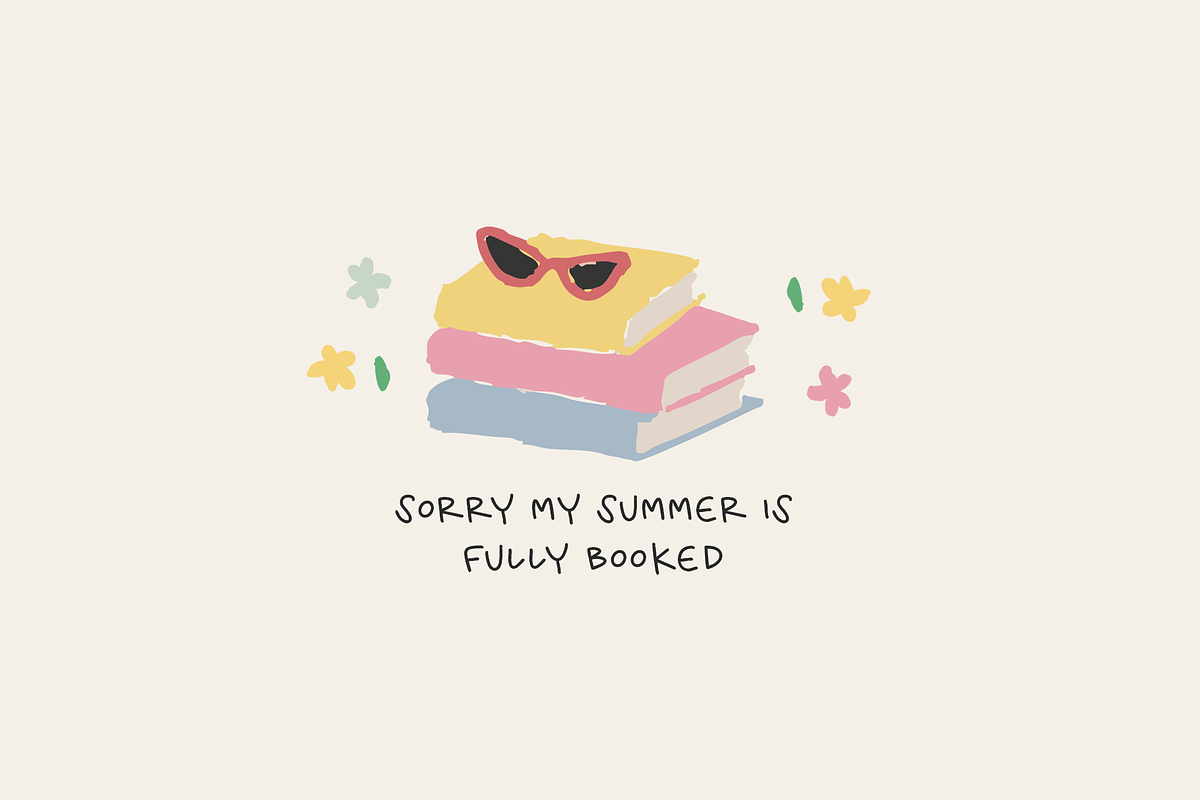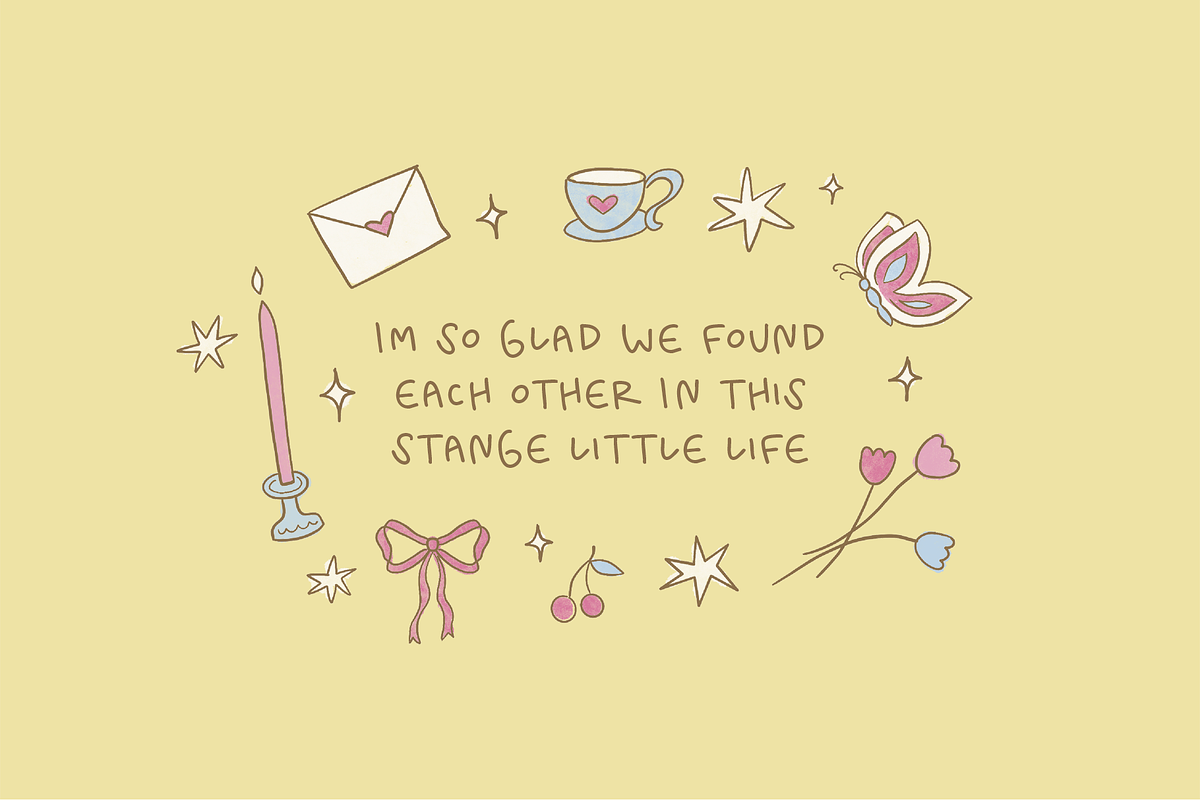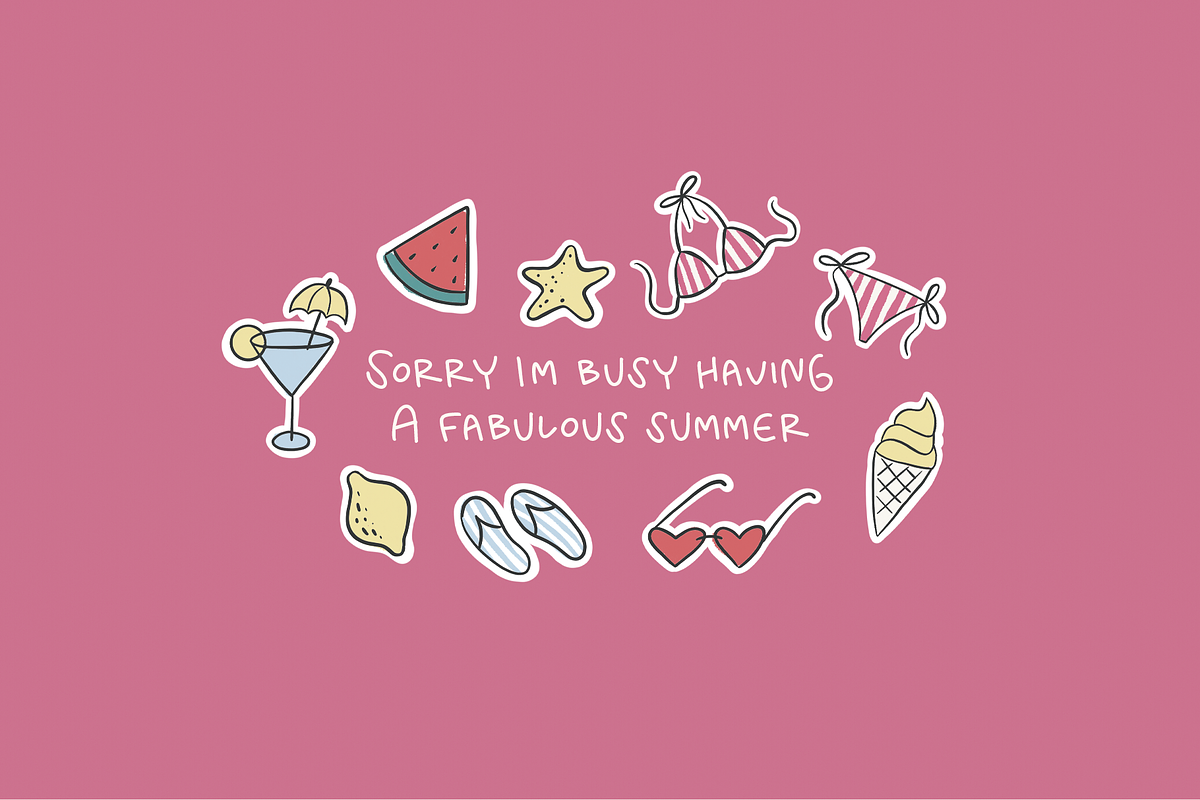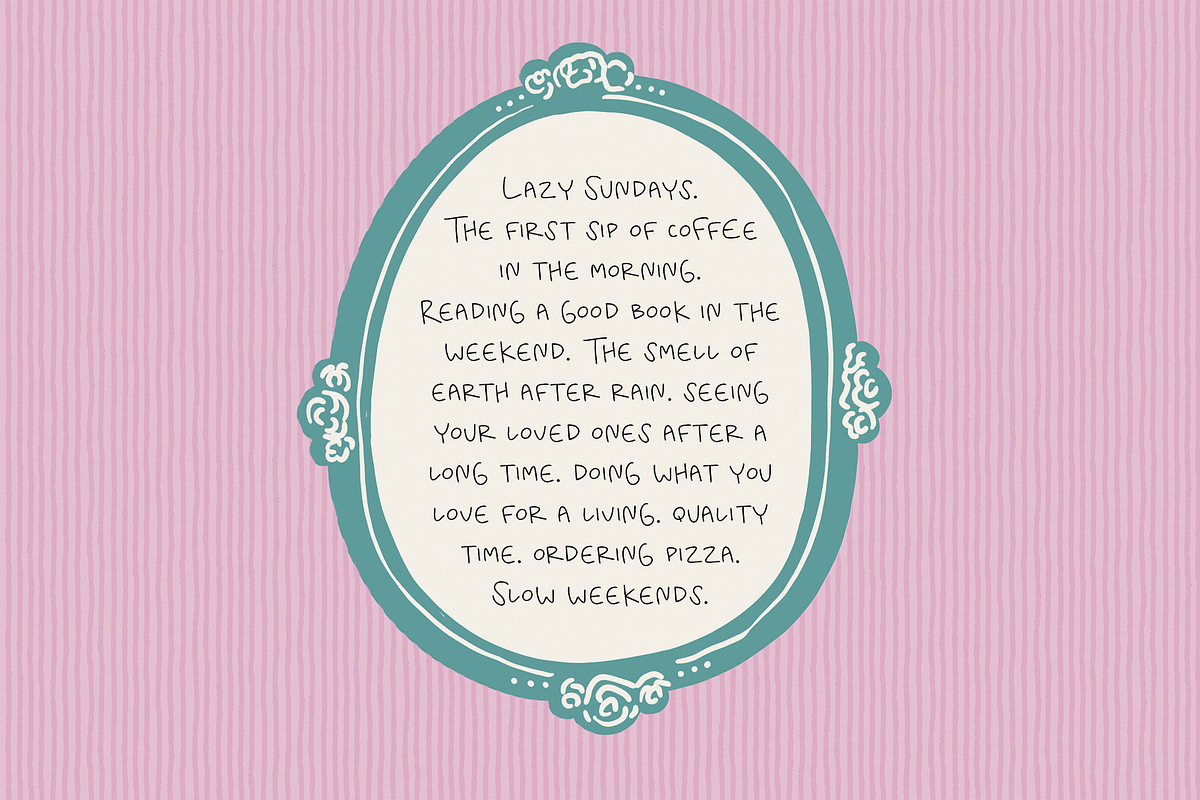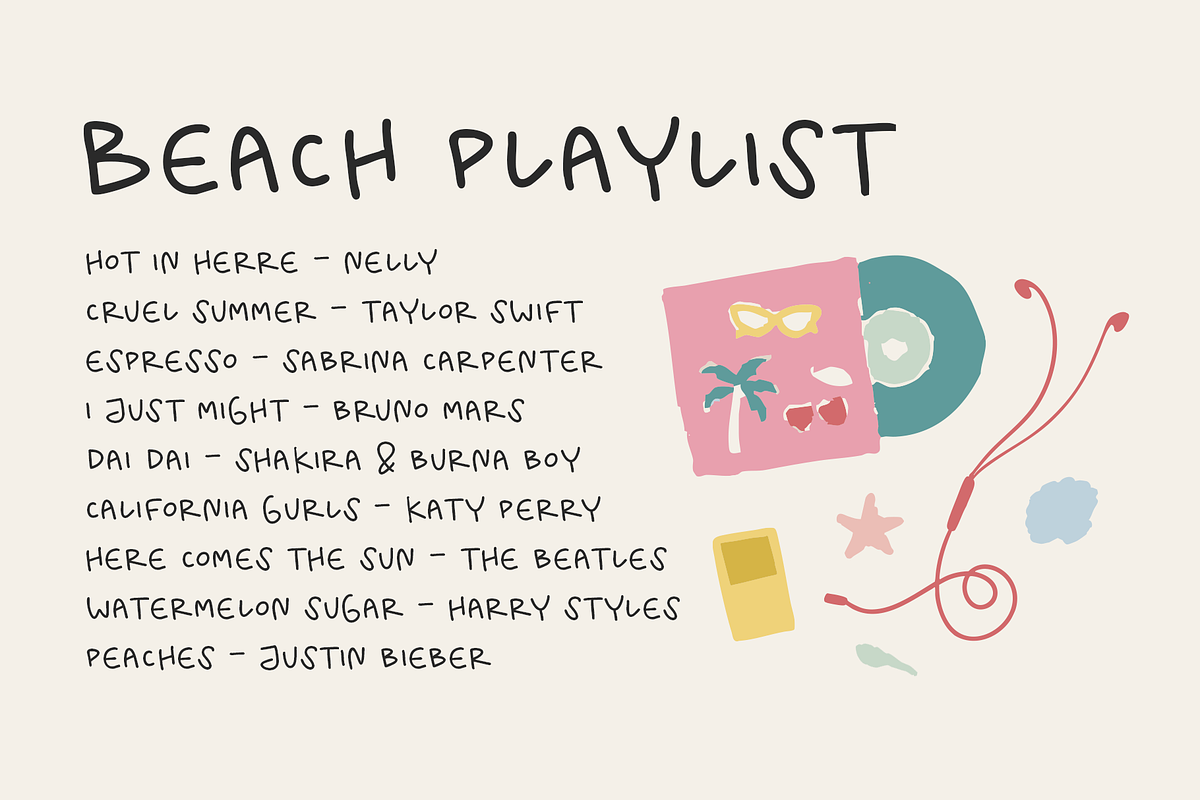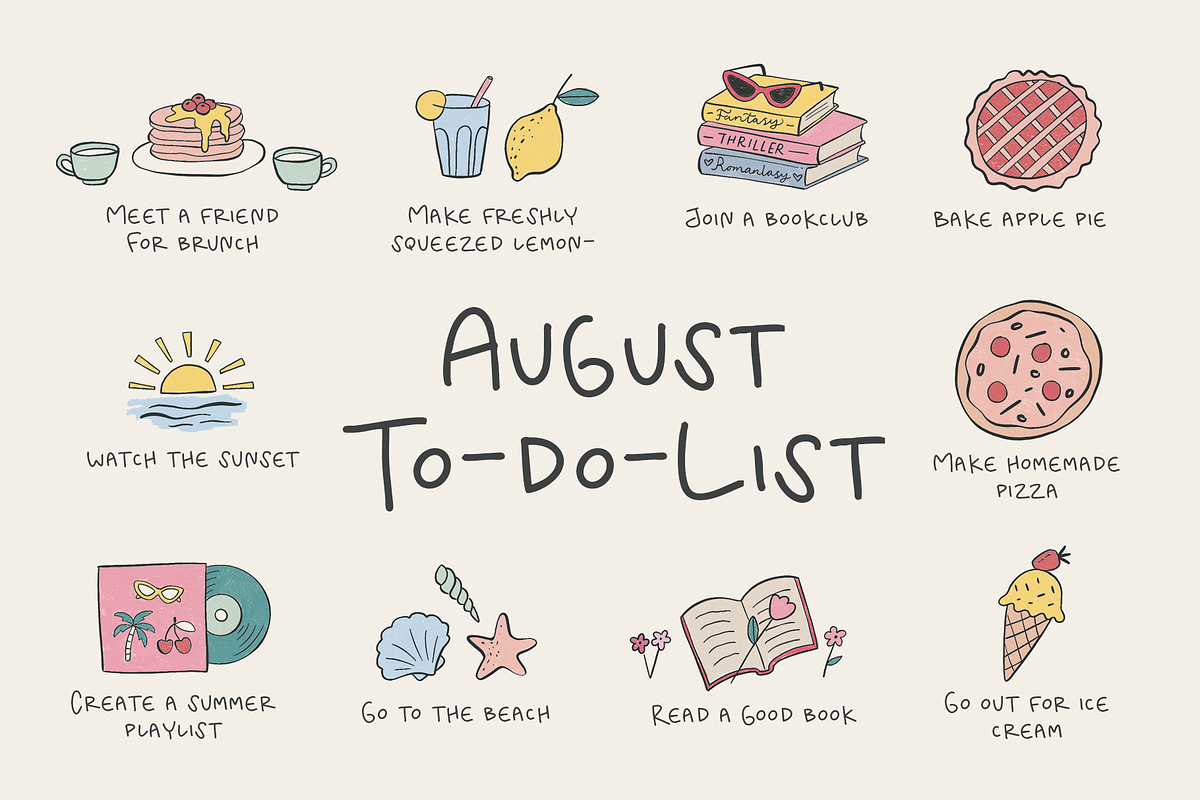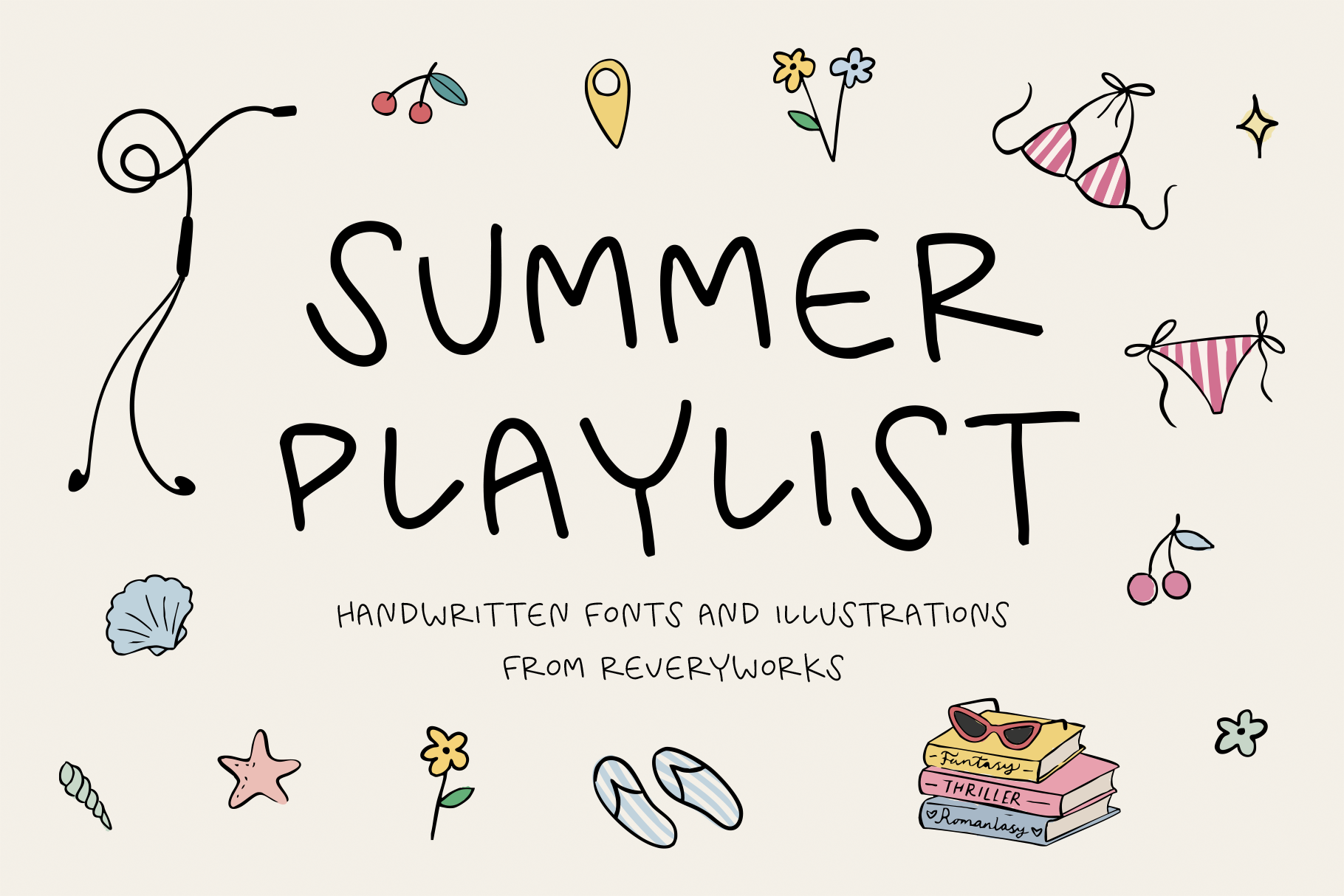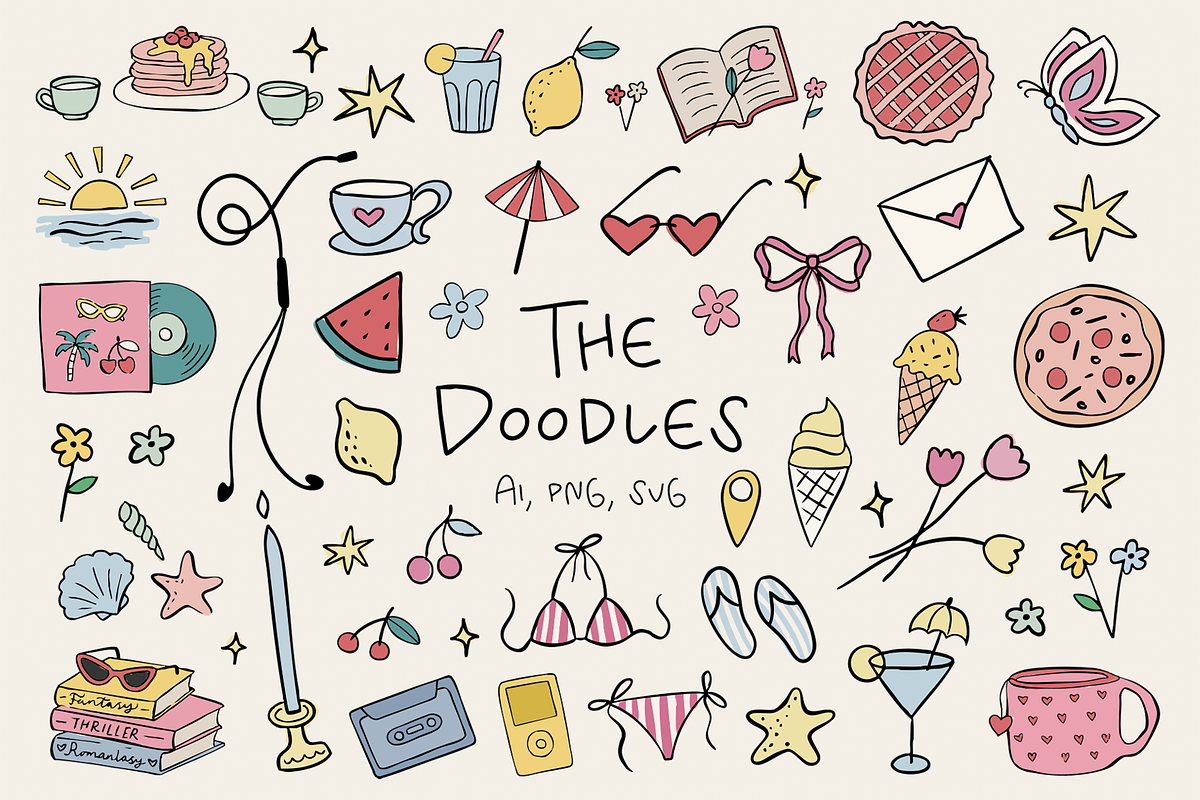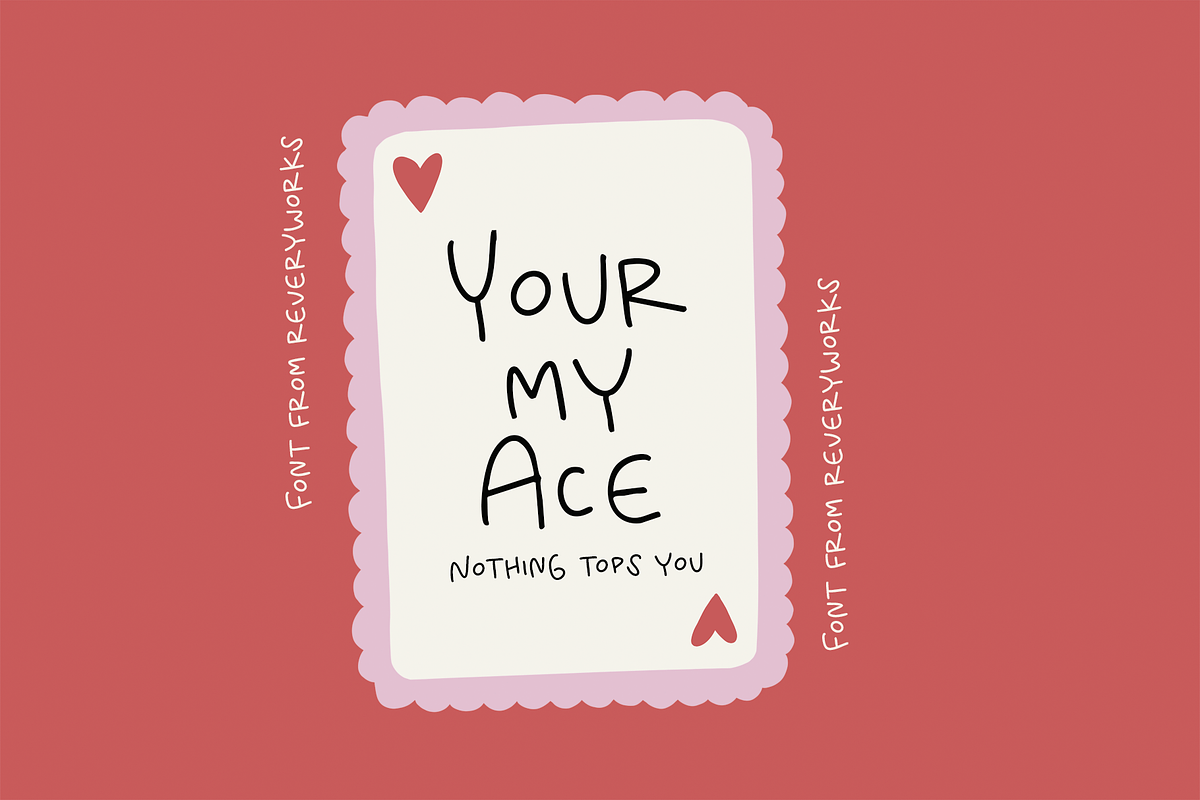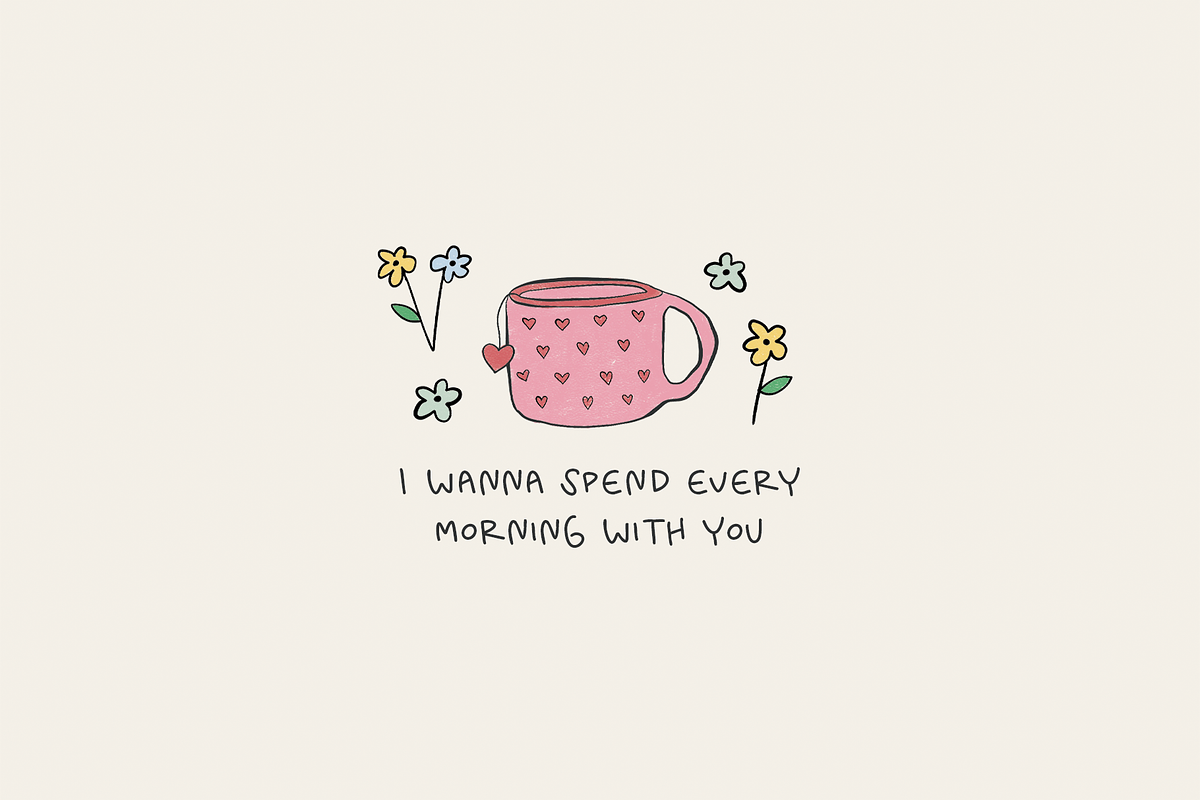
Summer Playlist Fonts & Doodles
Introducing Summer Playlist! An all caps, handwritten font with unique and casual letter forms. Inspired by summer time and activities. Looks good paired with the matching illustrations. You can use the illustrations as line art only or remove the outline for a softer look. Available in 5 font variations.